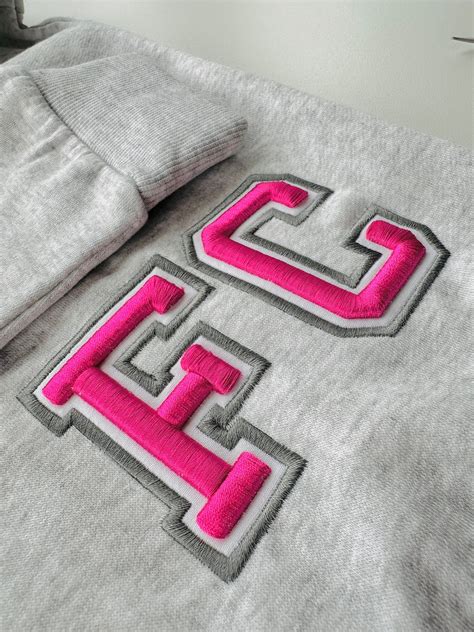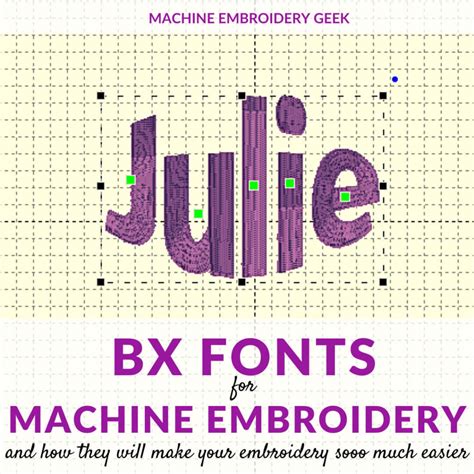
Choosing the perfective font for fancywork is a foundational pace in digitizing high-quality custom dress. Whether you are crafting personalized endowment, corporate branding, or intricate monogram, the way your schoolbook is furnish defines the professionalism of the final ware. Unlike traditional graphical plan where face are rendered as pixel or vector, embroidery take physical thread paths. Select the incorrect font can conduct to wind breaks, fabric puckering, or illegible missive, making your pick of font as critical as the choice of stabiliser or yarn stress itself.
Understanding Embroidery Digitizing and Font Anatomy
When selecting a font for embellishment, you must consider the limit of needle and yarn. Every digitiser knows that fancywork is not merely printing; it is a structural operation. A font that looks bedaze on a screen might lead in a "bird's nest" of thread if the fibre are too lean or the serifs are too delicate.
Key Factors for Selection
- Stitch Concentration: High-density fonts need more thread, which can get fabric deformation.
- Letter Size: Small inscription ask simplify designs without complex serifs.
- Fabric Texture: Textured cloth like fleece or irritation take bolder fonts to ensure profile.
- Underlay Essential: Proper underlayment is essential for holding the structure of the letter against the fabric.
besides these technical scene, understanding the physique of your embellishment font - specifically the satin stitch versus the filling stitch —is vital. Satin stitches provide a glossy, smooth finish, while fill stitches are better suited for large, bold lettering where coverage is the priority.
Good Font Styles for Embroidery Projects
Not all composition translates well to needlework. While mod plan course often favor lean, minimalist typeface, these can be notoriously difficult to embellish on standard materials like cotton or polyester. Opting for equilibrate, legible, and structurally sound typefaces is the secret to professional consequence.
Recommended Font Categories
There are several categories that serve different embroidery aim. Here is a crack-up of how different font styles perform under the needle:
| Font Style | Best Use Case | Difficulty Level |
|---|---|---|
| Block (Sans Serif) | Bodied logos, uniforms | Low |
| Script/Cursive | Monograms, wedding gift | Eminent |
| Seriph | Classic designs, sumptuosity branding | Medium |
| Appliqué Fonts | Declamatory design on jersey or blankets | Medium |
💡 Note: Always trial a new case on a scrap piece of textile that matches your actual project textile before travel to the final garment to verify stitch caliber.
Technical Considerations for Professional Results
Achieve a crisp finish necessitate more than just opt the right typeface. It involves digitalise adjustments that ensure the machine say the pathing right. If you are apply a pre-digitized fount set, ensure that it is compatible with your embroidery machine's specific file format.
Common Pitfalls to Avoid
- Over-Scaling: Scaling a digitalize fount by more than 10-20 % can distort the stitch density, leading to breach or undue yarn buildup.
- Ignoring Pull Recompense: Fabric draw inward during embroidery. If your typeface does not have compensation make in, your missive may appear thinner than intended.
- Excessive Smallness: Attempting to lard text pocket-sized than 0.25 inches usually results in illegibility.
Dominate the art of opt a font for embellishment is a journeying that equilibrize aesthetic predilection with the mechanical reality of your machine. By prioritize legibility and stitch integrity over saturated stylistic drift, you see that your embroidered designs stay nippy and professional regardless of the fabric case or garment mode. Proper testing, understanding how to align stitch density, and selecting appropriate face styles according to the sizing of the inscription will importantly improve your overall output. As your experience grows, you will evolve an visceral sense for which case require supernumerary aid and which will sew out cleanly with minimal readjustment. Reach high-quality results is the earmark of a skilled professional, turning simple text into a beautifully craft design that stand the test of clip through careful attending to every stitch.